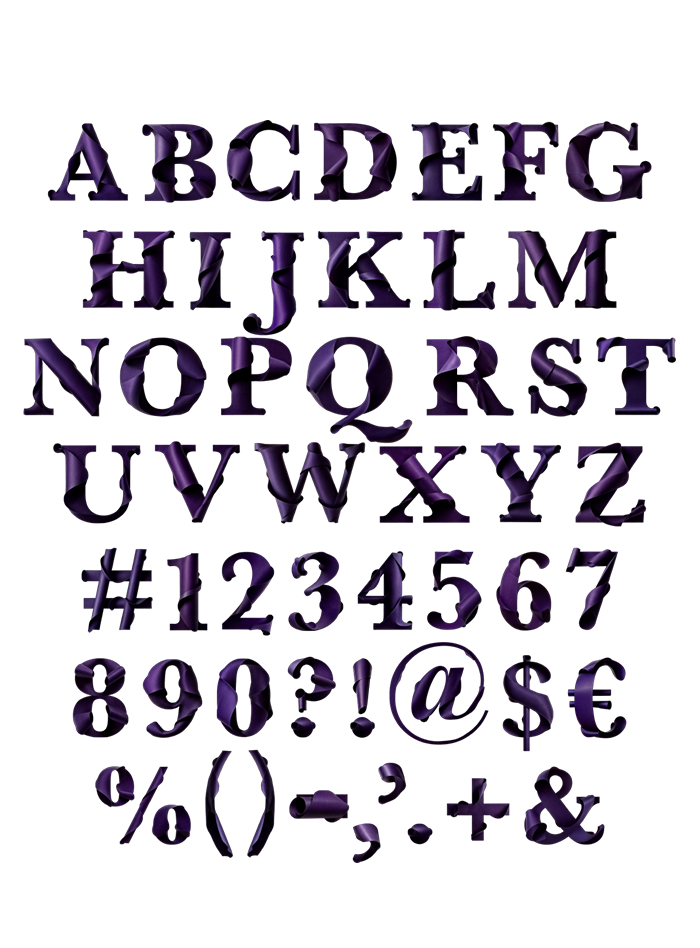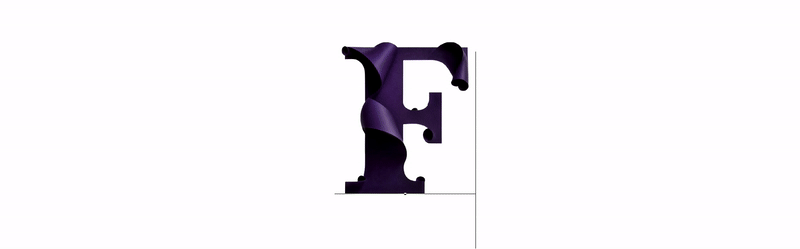
Purple Paper Font – Elegant Folded Lettering in Color
Purple Paper Font transforms folded violet sheets into elegant sculptural lettering with curls, crisp edges and handcrafted depth. The package includes a high-resolution color OpenType font plus 52 individual PNG characters on transparent backgrounds. Use it for luxury branding, editorial covers, boutique packaging, invitations, beauty campaigns and sophisticated designs that need expressive paper texture.
Purple Paper Font with sculptural folded letters
Purple Paper Font turns folded sheets into sculptural lettering with sweeping curls, crisp edges and a rich violet finish. Each character looks carefully cut, shaped and layered by hand, giving the alphabet the depth of miniature paper art. The dramatic color and elegant forms make headlines feel refined without becoming rigid. It is a distinctive display typeface for designers who want tactile detail, graceful movement and a memorable handcrafted character.
Purple Paper Font animated preview showing a folded violet paper letter F on a white layout with guide lines.
Elegant paper typography for premium projects
This decorative alphabet suits luxury branding, editorial covers, boutique packaging, invitations, beauty campaigns and sophisticated social graphics. Purple creates an immediate sense of creativity and distinction, while the paper folds add visual rhythm without extra effects. Browse our Luxury Fonts collection for more expressive premium lettering. Keep supporting text clean and restrained so the detailed paper construction remains the hero of the composition.
How to compose with folded paper lettering
Give the characters room to breathe and use short words when the folded details need maximum impact. Pale neutral backgrounds reveal the violet contours clearly, while deep backgrounds create a more theatrical result. Transparent PNG letters are ideal for layered posters and custom compositions. For a sharper geometric interpretation of folded typography, compare it with MonoFold Font. Purple Paper Font brings the elegance of handcrafted paper sculpture into a flexible digital workflow.
Purple Paper Font cover displaying large folded violet paper letters spelling FONT with OpenType and PNG information.
Purple Paper Font character set with folded violet paper letters, numbers and punctuation arranged on a light background.
Purple Paper Font spelling SALE with rows of percent symbols on a framed outdoor billboard beside plants and a concrete wall.
Purple Paper Font quote reading Purple is the color of dreams too wild to be ordinary on a muted violet background.
Purple Paper Font folded violet letter G displayed in a wooden frame beside a chair and dried golden foliage.
Purple Paper Font quote When in doubt, add more purple printed in folded violet letters on a curled white poster.
Purple Paper Font folded violet ampersand and question mark displayed as sculptural paper symbols on dark green.
Purple Paper Font spelling YES in folded violet paper letters printed across a softly lit white T-shirt.
Purple Paper Font folded violet letter Y printed inside white circles across three black notebook covers on a wooden table.
Purple Paper Font preview showing folded violet paper letters ABCD and numbers 12345 on a transparent checkerboard background.